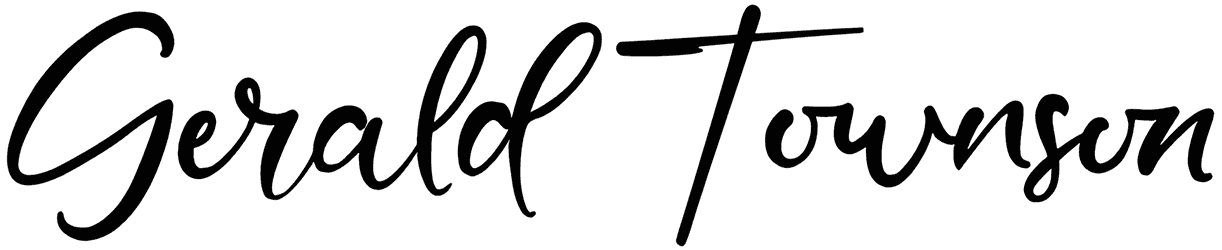
Gerald Townson Font
If you feel the shortage of a reliable source of inspiration for designing eye-grabbing visual content, a lovely script font, the same as Gerald Townson’s would be your savior. Aside from carrying a feeling of softness, delicacy, or viability, due to its cursive style and crooked letters, this handwritten font lets you add your personalized touch to your magazines, blog posts, stationaries, or branding projects.